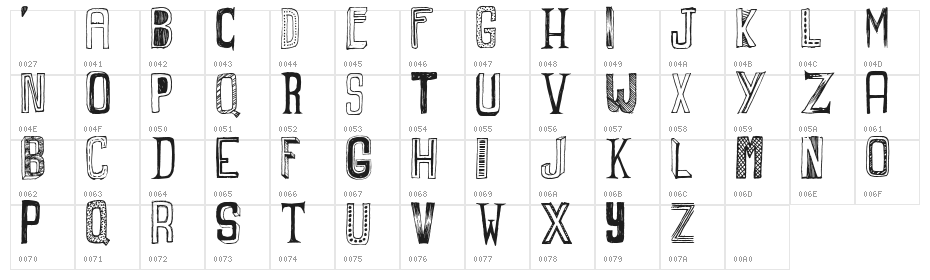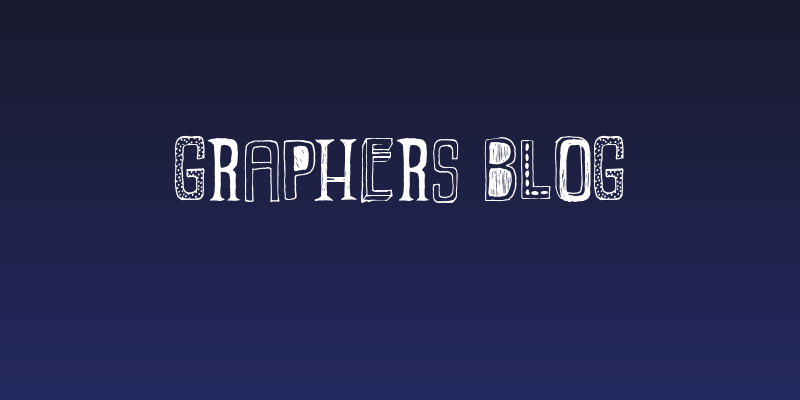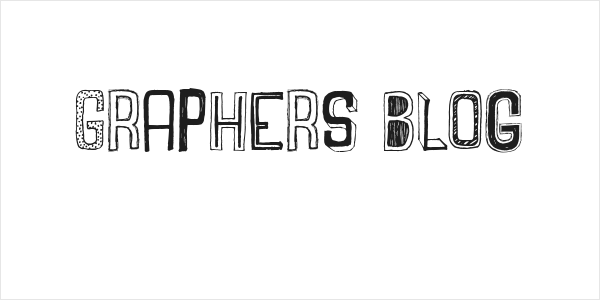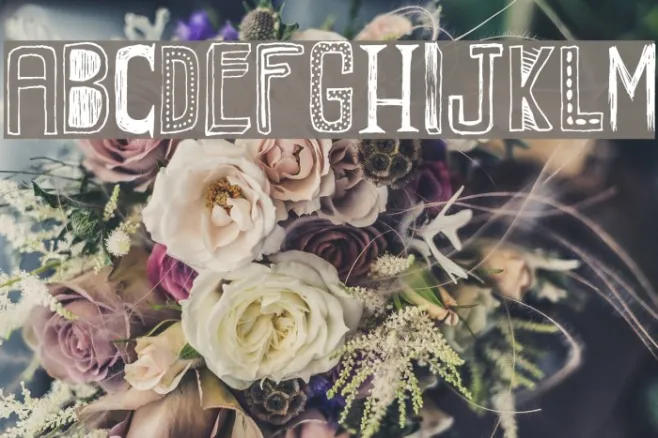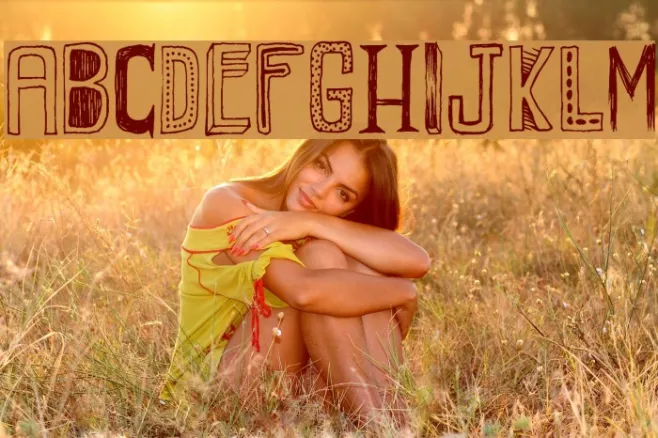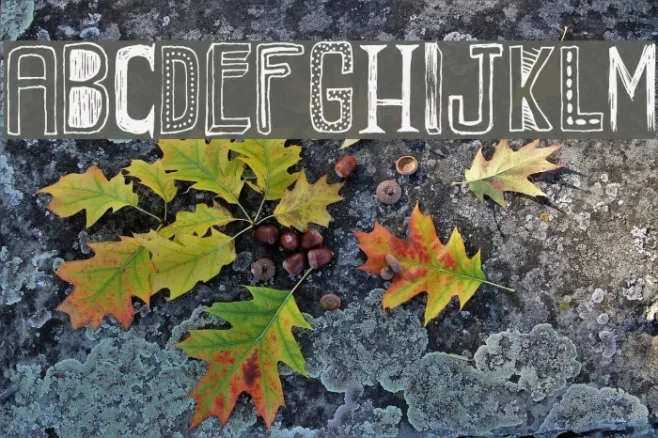
Graphers Blog Font
Graphers Blog Description
This font is a highly decorative and artistic typeface, characterized by its hand-drawn, sketch-like appearance. Each letter features unique patterns and textures, ranging from stripes and dots to crosshatching and shading, giving it a dynamic and playful feel. The uppercase letters are bold and varied, with some letters appearing more condensed while others are more expanded. The lowercase letters and numbers are missing, which suggests a focus on display rather than comprehensive text use. The font's irregular and whimsical style makes it ideal for creative projects where a bold statement is needed. It is perfect for designs that require a handcrafted, artistic touch.
| Overall Style | Artistic, Playful, Handcrafted |
| Proposed Projects | Ideal for posters, artistic projects, branding, and any design needing a creative, handcrafted look. |